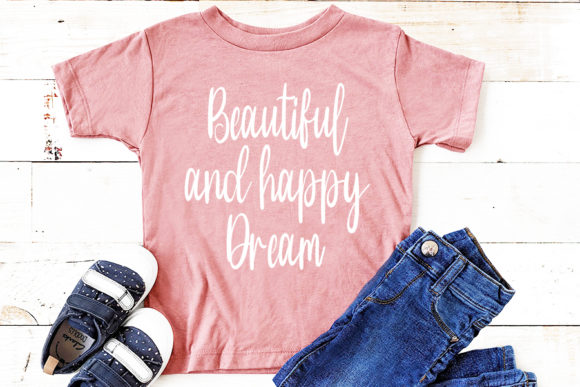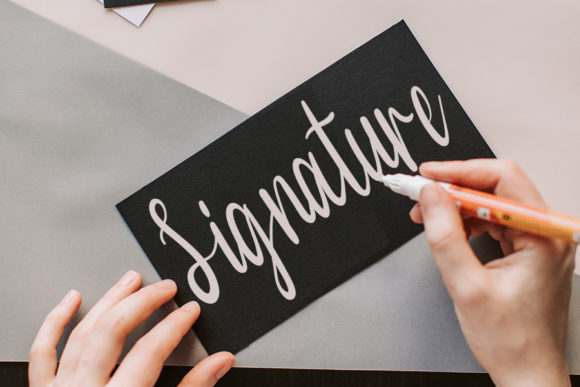
Hello Honey Font
db-ku.com - Script & Handwritten -- Hello Honey is a tall and friendly handwritten font. This font is perfect for a wide variety of projects such as making flyers, mockups, logos, banners, Instagram, youtube, and various other crafts.